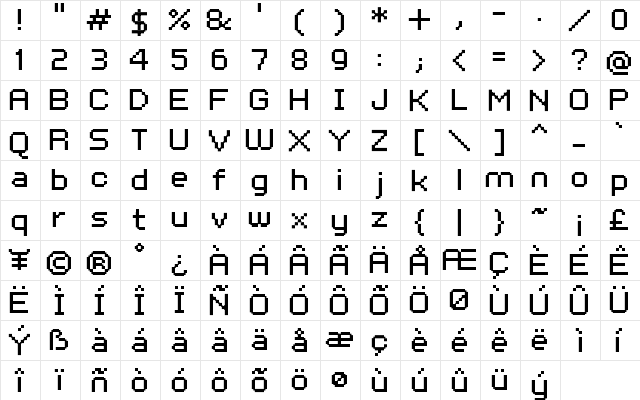
FFF Business Regular
Design Context for FFF Business Typeface
FFF Business is a composed and adaptable typeface that performs quietly and consistently across a wide range of design contexts.